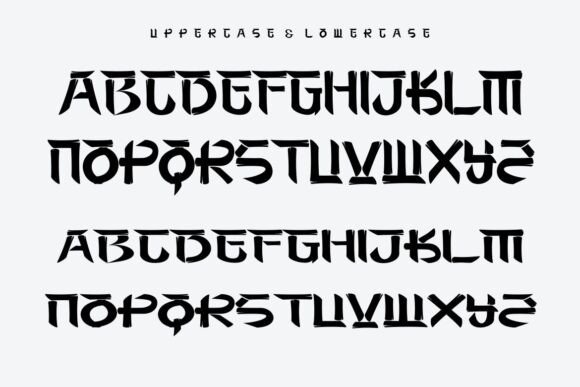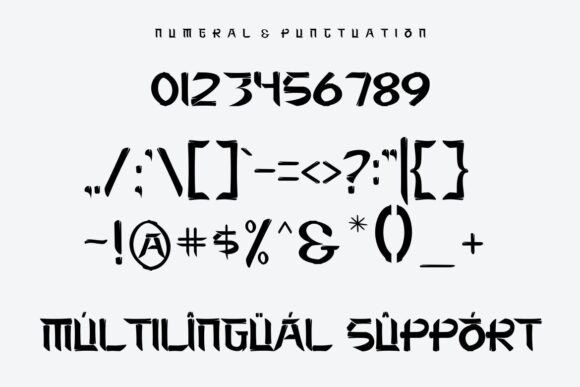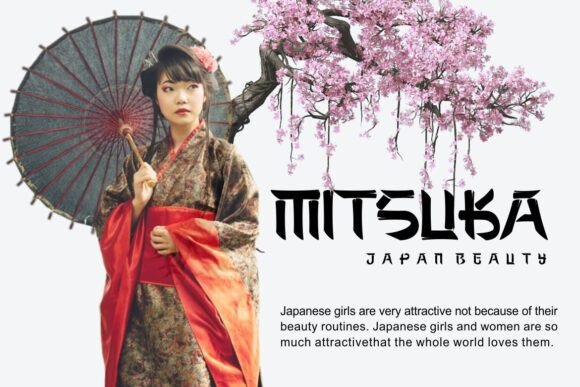
Introduction to Matsuke Font
Matsuke is a unique and interesting decorative font.
👤 Author cozzdesign
A little bit quirky, this font looks incredibly adept on a wide variety of contexts .
Key Features of Matsuke Font
Why Choose Matsuke Font?